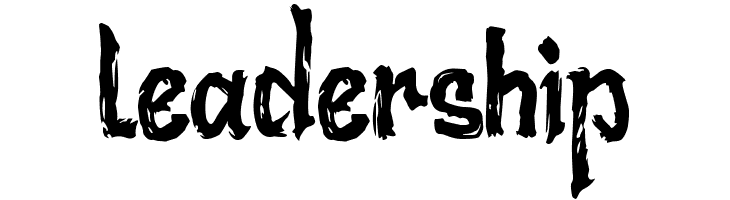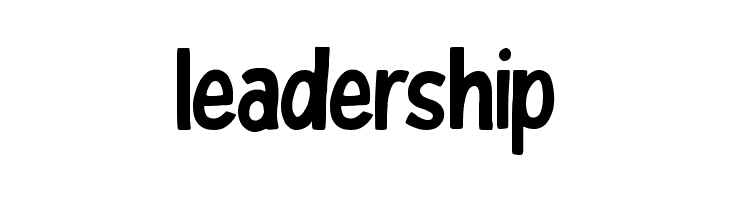
A playful, pizza-themed decorative font with bold outlines and whimsical details.
A bold, blocky font with a digital, pixelated style.
A bold, geometric font with a 3D effect and a futuristic, robotic style.
A bold, 3D italic font with a futuristic, geometric design.
A futuristic, 3D-outlined font with angular, geometric shapes and a consistent slant.
A bold, angular, and futuristic italic font with a mechanical aesthetic.
A bold, italic, futuristic font with sharp angles and a robotic feel.
A bold, geometric font with a futuristic, digital aesthetic.
A futuristic, geometric font with a bold, three-dimensional appearance.
A bold, rugged, hand-drawn style font with a rebellious character.
A bold, rugged font with a hand-drawn, distressed appearance.
A bold, hand-drawn font with a playful and chaotic style.
A bold, hand-drawn font with diagonal stripes and a playful, artistic style.
A bold, hand-drawn font with a textured, sketch-like appearance.
A playful, bold, and hand-drawn font with a whimsical style.
A playful, bold font with wavy, irregular strokes and a whimsical style.
A bold, dynamic display font with angular strokes and a comic-like style.
A bold, dynamic font with thick strokes and a slightly slanted style.
A bold, geometric font with a strong and impactful presence.
A bold, italic font with a dynamic and modern style.
A tall, narrow font with a geometric and modern style.
A bold, distressed font with a textured, rugged appearance.
A bold, decorative font with a three-dimensional beveled effect and striped pattern.
A bold, decorative font with a beveled, textured design.
A bold, distressed font with a rugged, vintage look.
A modern, geometric font with a linear and rhythmic design.
A bold, cursive font with a dynamic, handwritten style.
A bold, expressive script font with dynamic curves and strong strokes.
An elegant, flowing script font with a handwritten style.
A bold, vintage serif font with intricate line details and a classic appeal.
A lively handwritten font with fluid, dynamic strokes and a playful aesthetic.